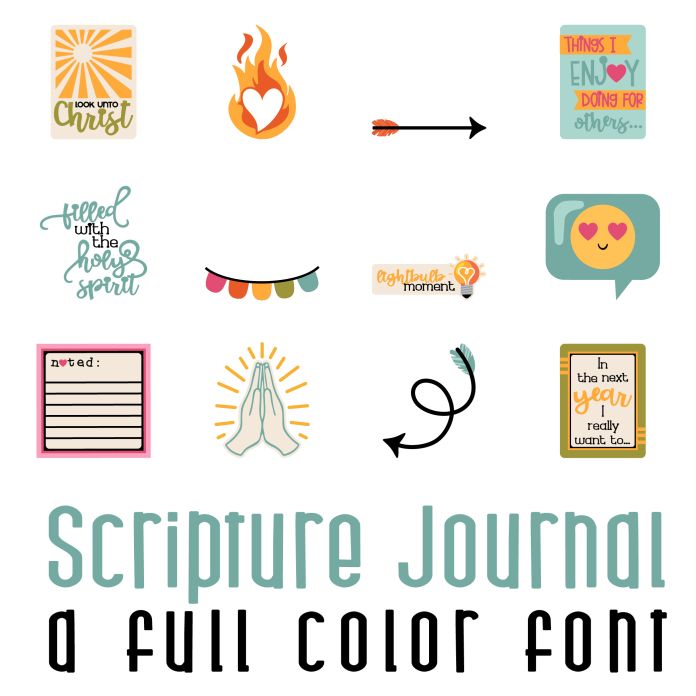
Scripture Journal Full Color Font
A full-color font stores svg data inside an Open Type font file. This font will look black if not used in a program like Silhouette Studio which is compatible. Images can be pulled apart with some vector programs like Illustrator and cut with your cutting machine. This fun full color font features 26 religious journaling and message boxes. Perfect for classrooms, teachers, gifts, decor, scrap book pages, planner stickers and more!